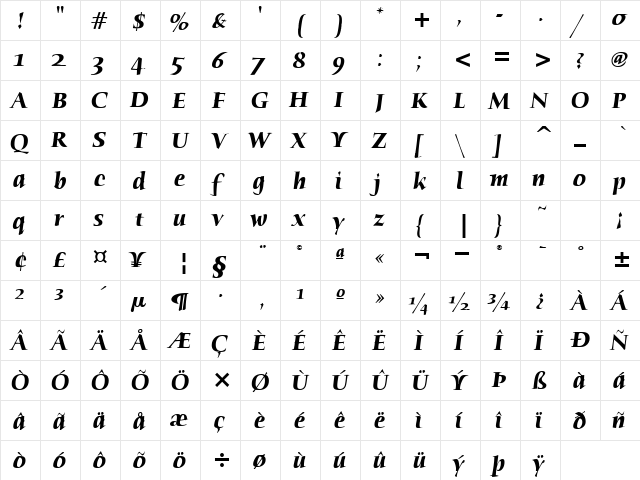
Humana Serif ITC TT BoldItalic
Design Context for Humana Serif ITC TT Typeface
Humana Serif ITC TT brings classic typographic sensibility to the table — its serifs and measured letterforms reflect centuries of print heritage. The slanted form adds forward momentum and visual energy. The heavy weight commands attention and anchors typographic hierarchies.
Pro Tip: Set Humana Serif ITC TT with slightly loose tracking in headlines to let each letterform's detail read clearly at display sizes.